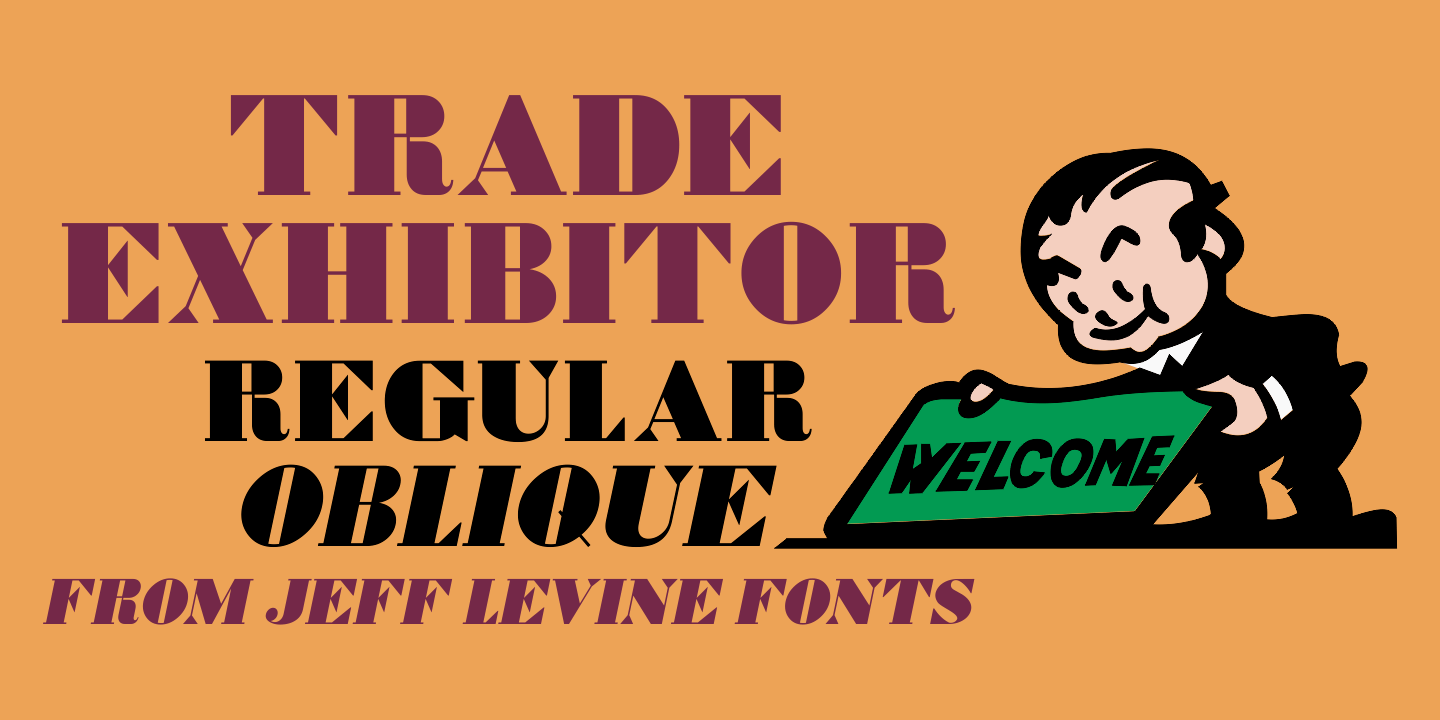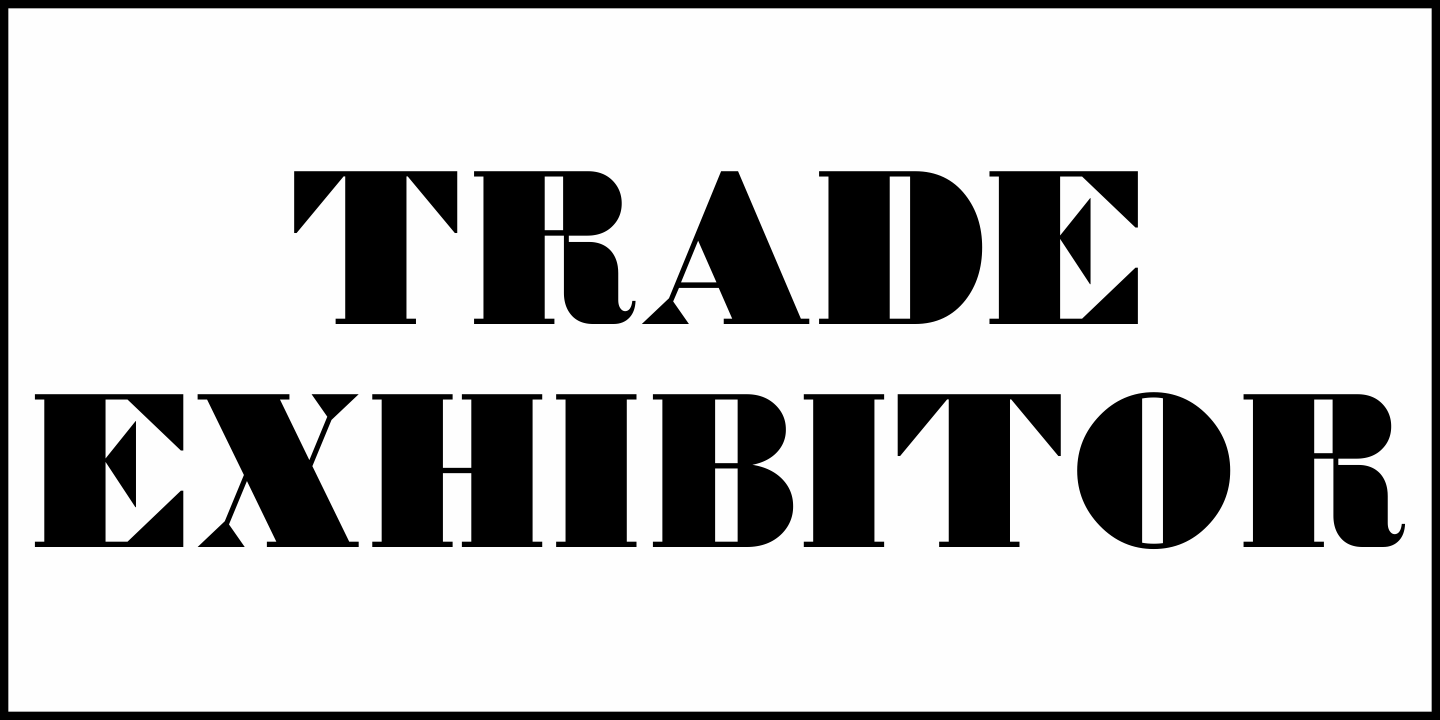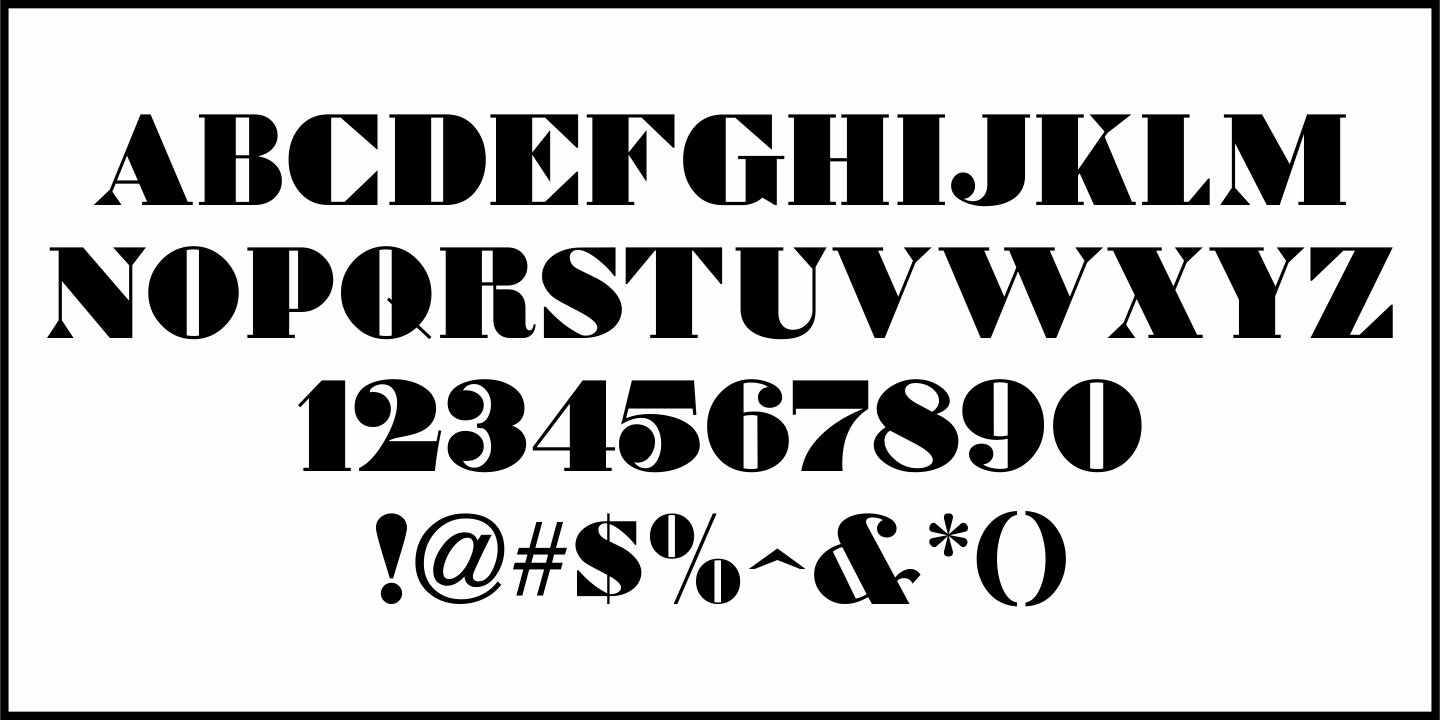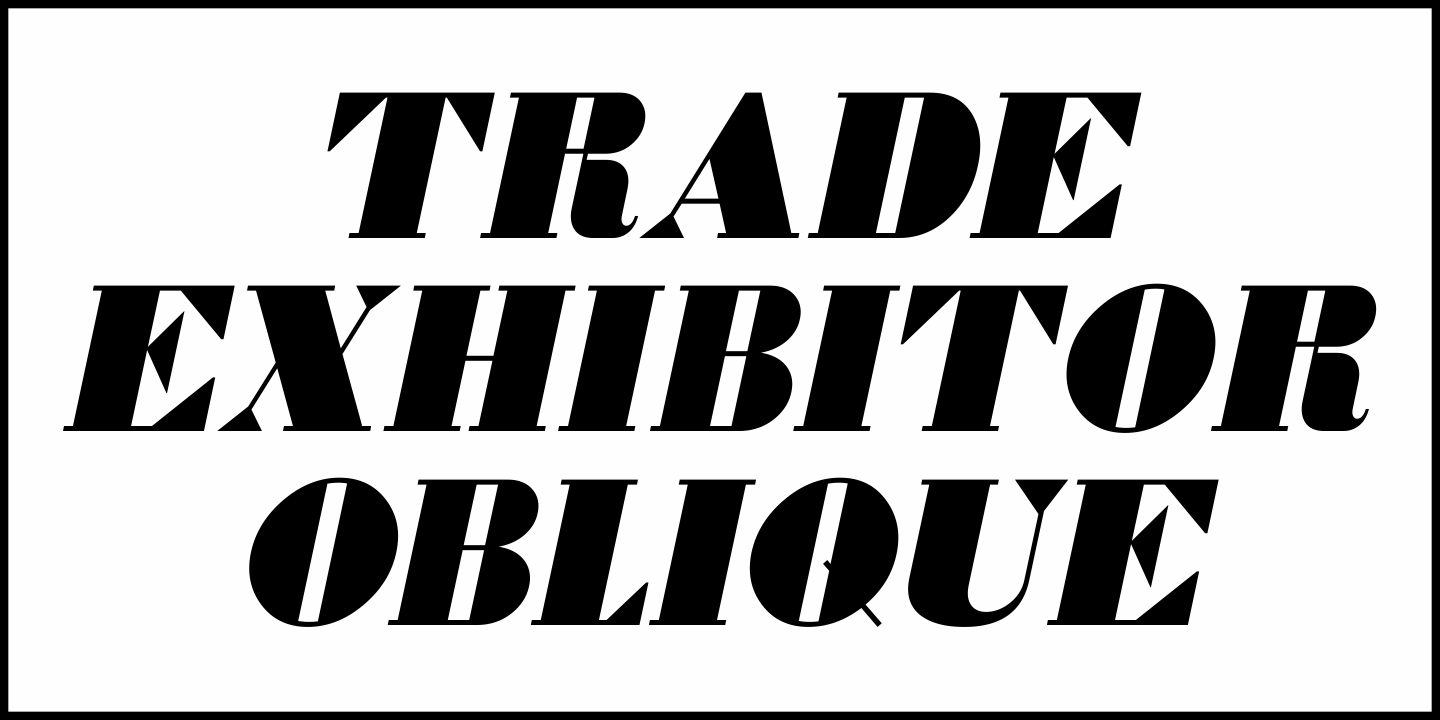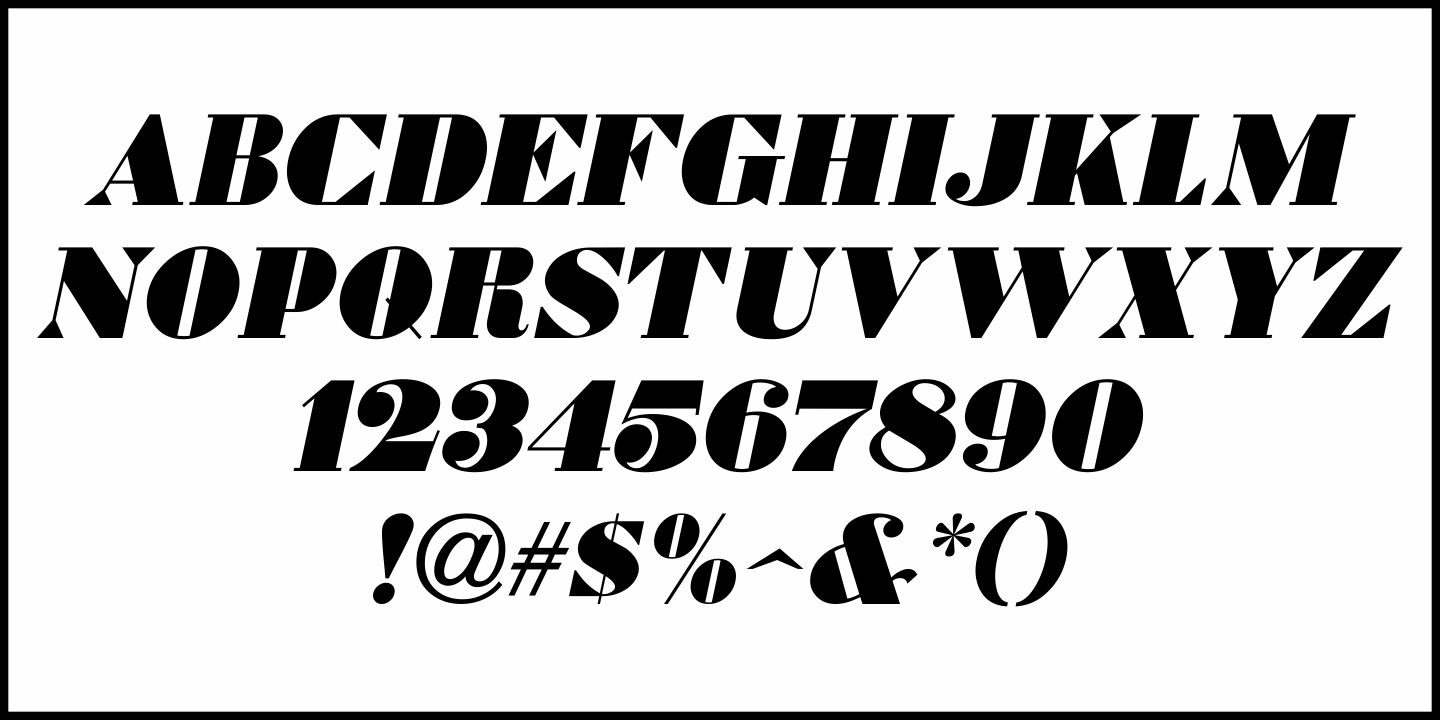
Trade Exhibitor
Several ads for Paramount's "All Talking Pictures" found in the pages of the December 12, 1928 issue of Exhibitors Herald World featured an extra bold, serif type face reminiscent of Bodoni Bold, but also carrying influences of the emerging Art Deco movement.
This was the working model for Trade Exhibitor JNL, which is available in both regular and oblique versions.